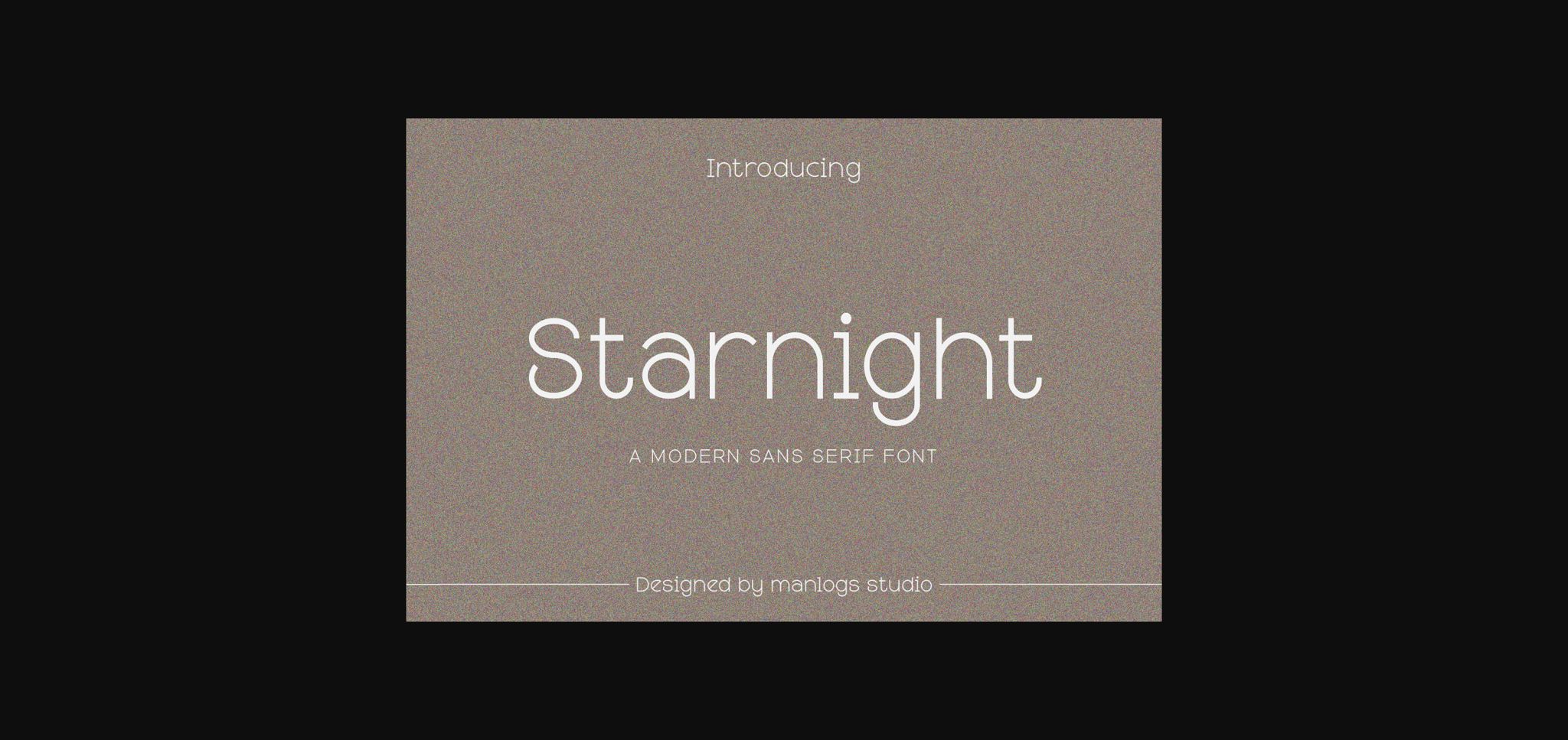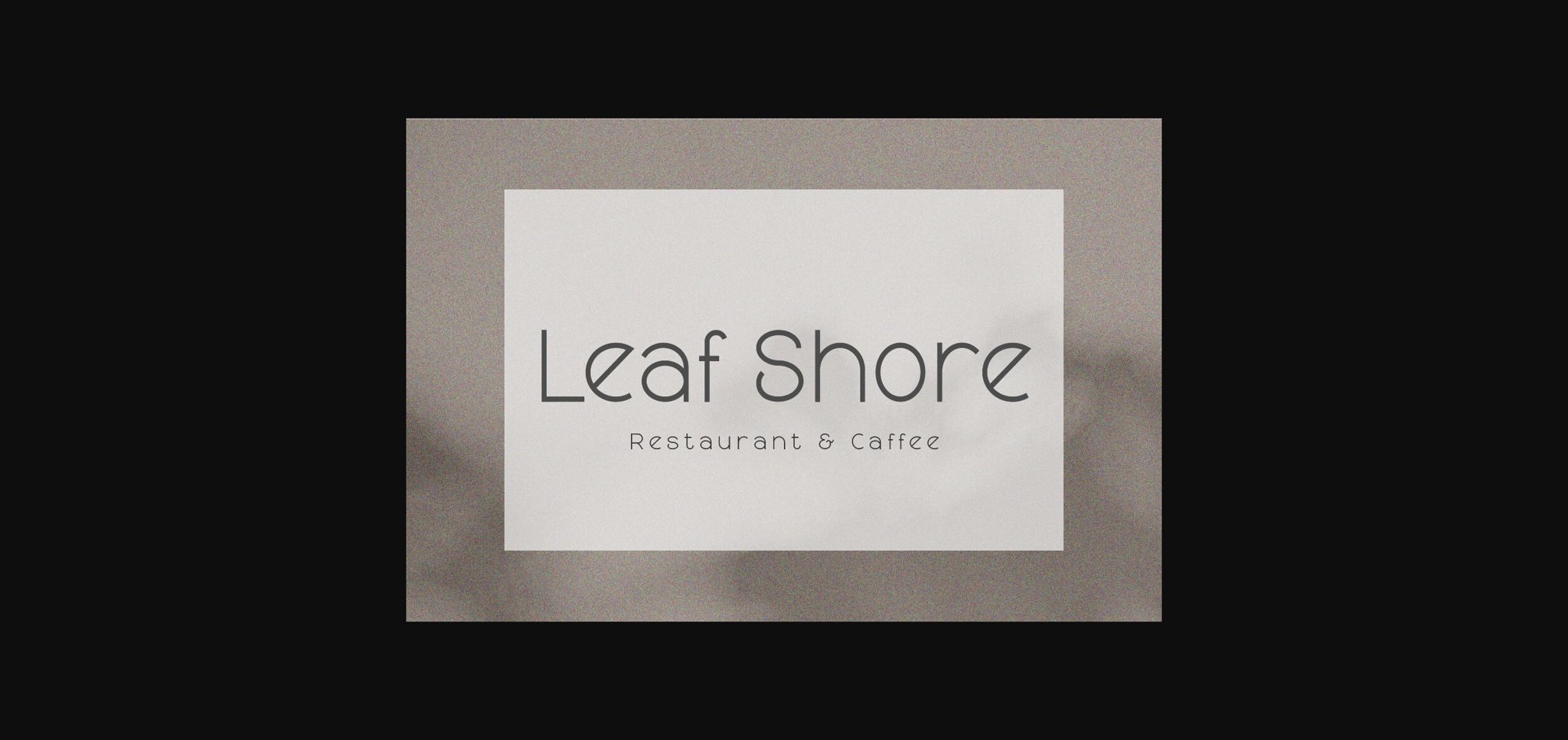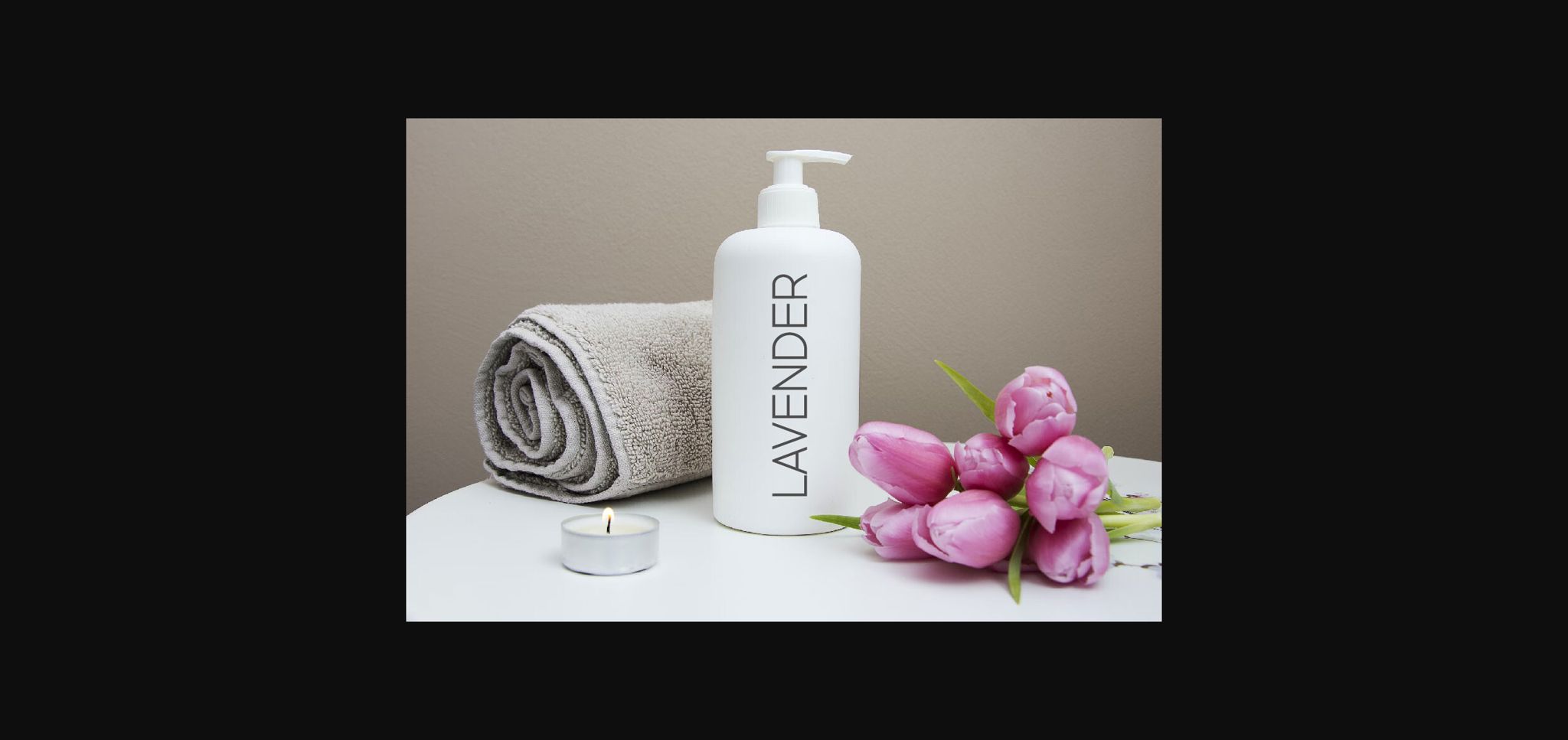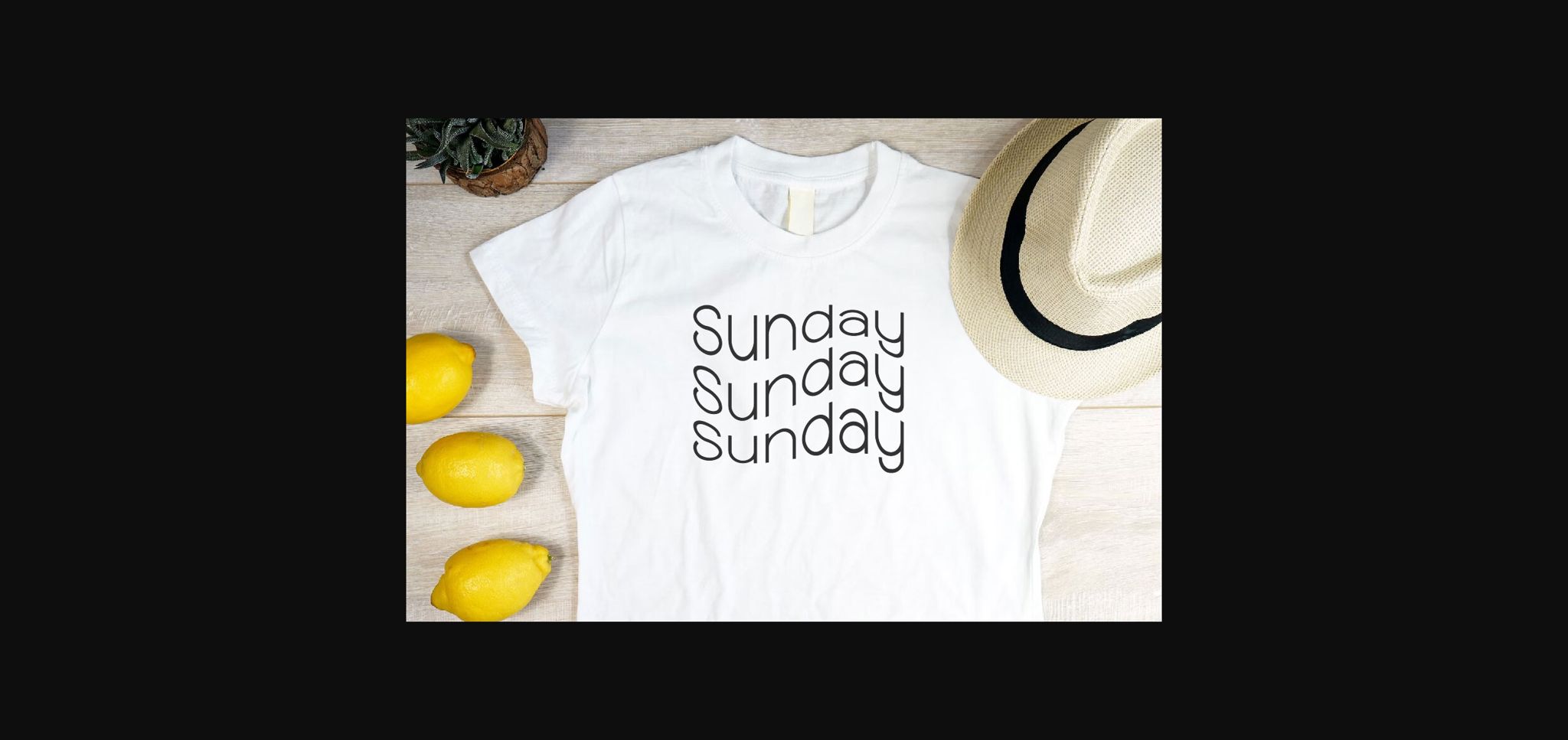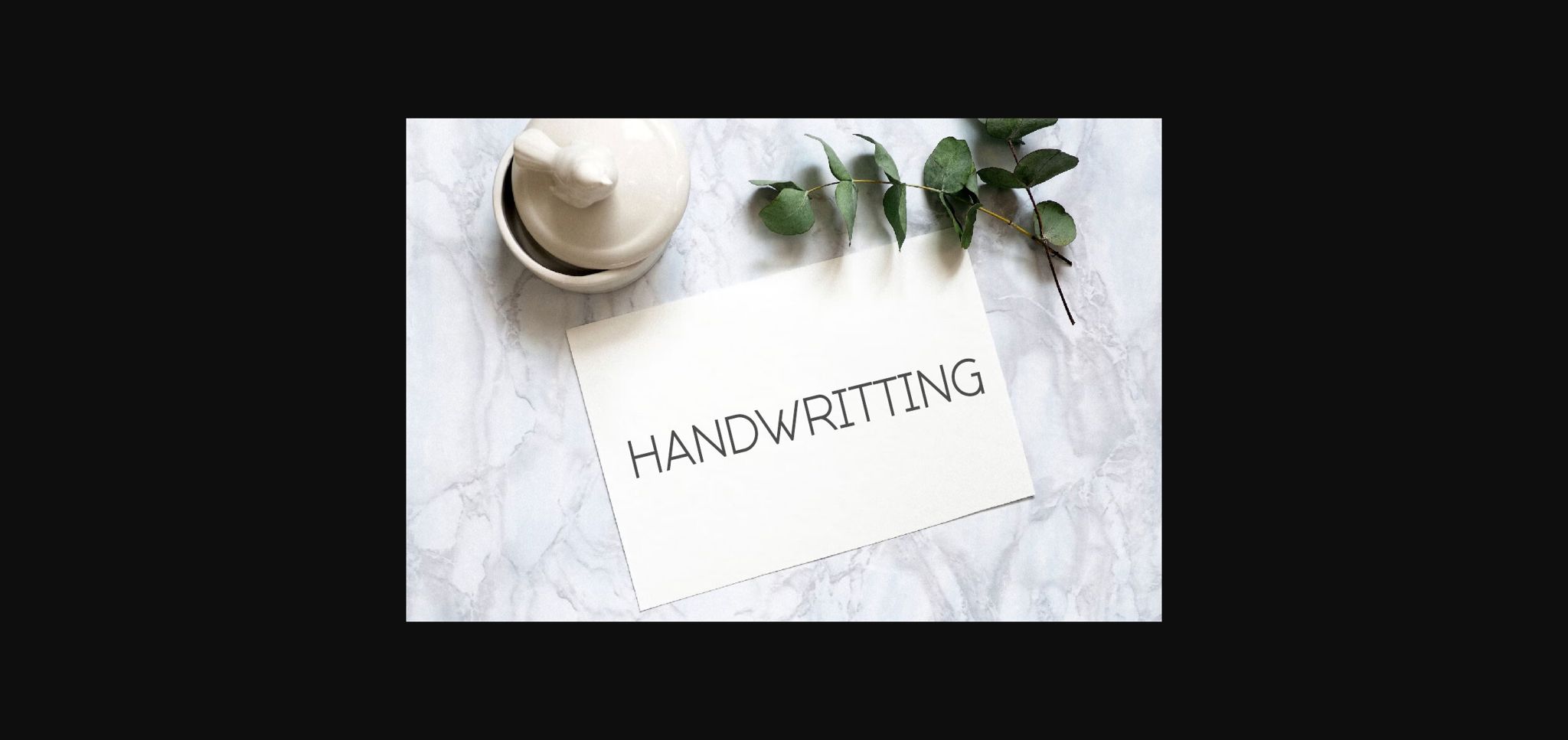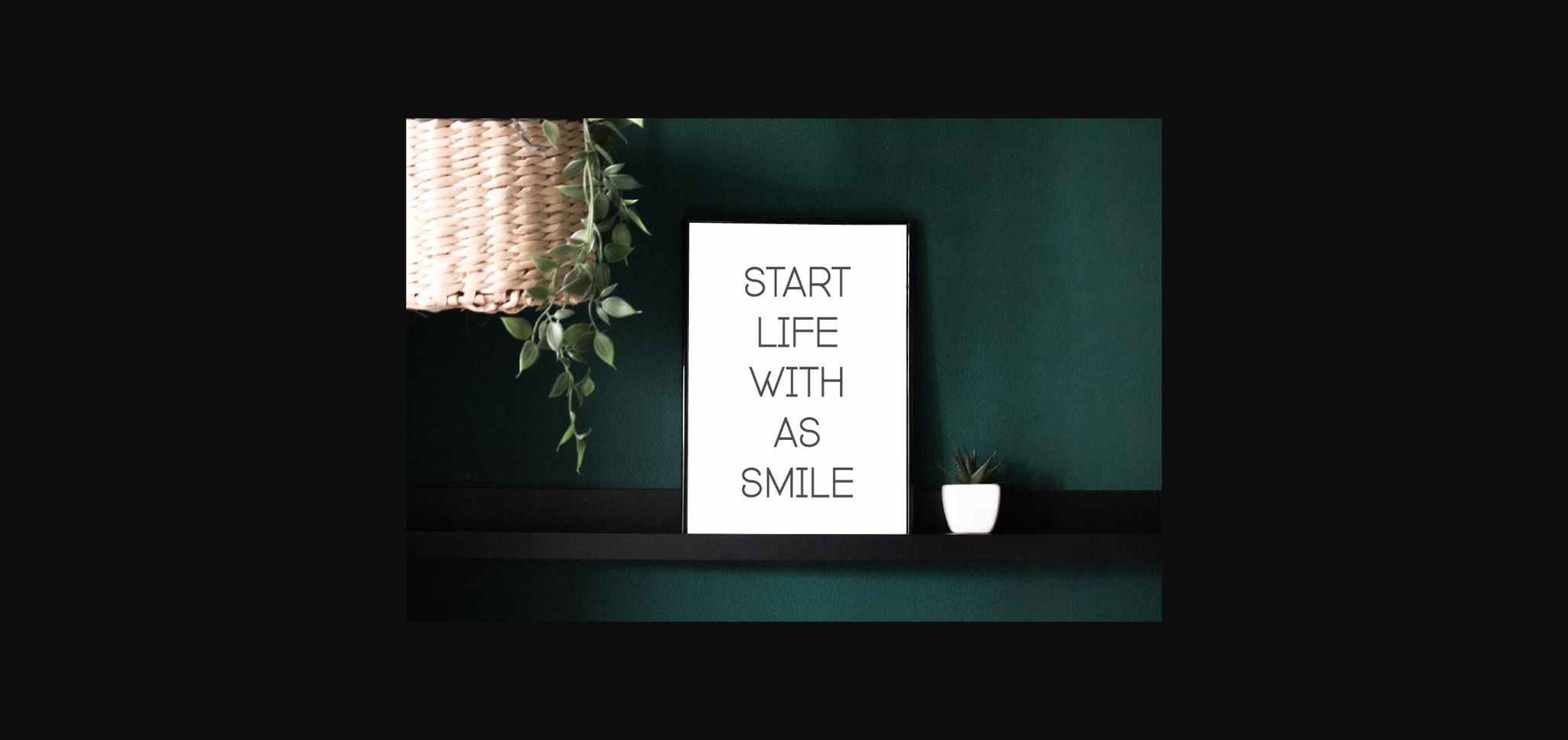
About Starnight Font
Starnight is a simple and modern sans-serif font designed for a clean retro look. With its vintage balanced proportions, this font is perfect for creating a minimalist aesthetic in craft design ,mug, wedding invitation, home decor, poster, quotes, t-shirt, gift labels, logos, web design, branding and more!